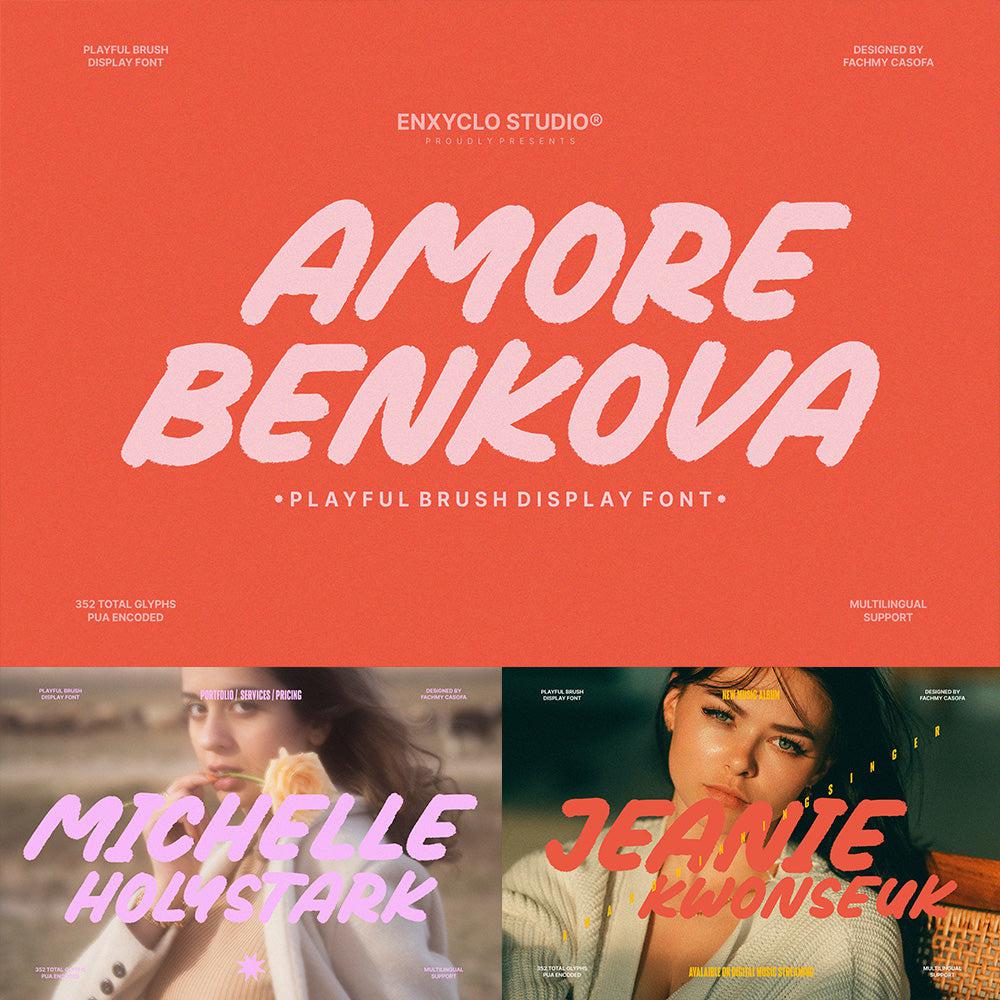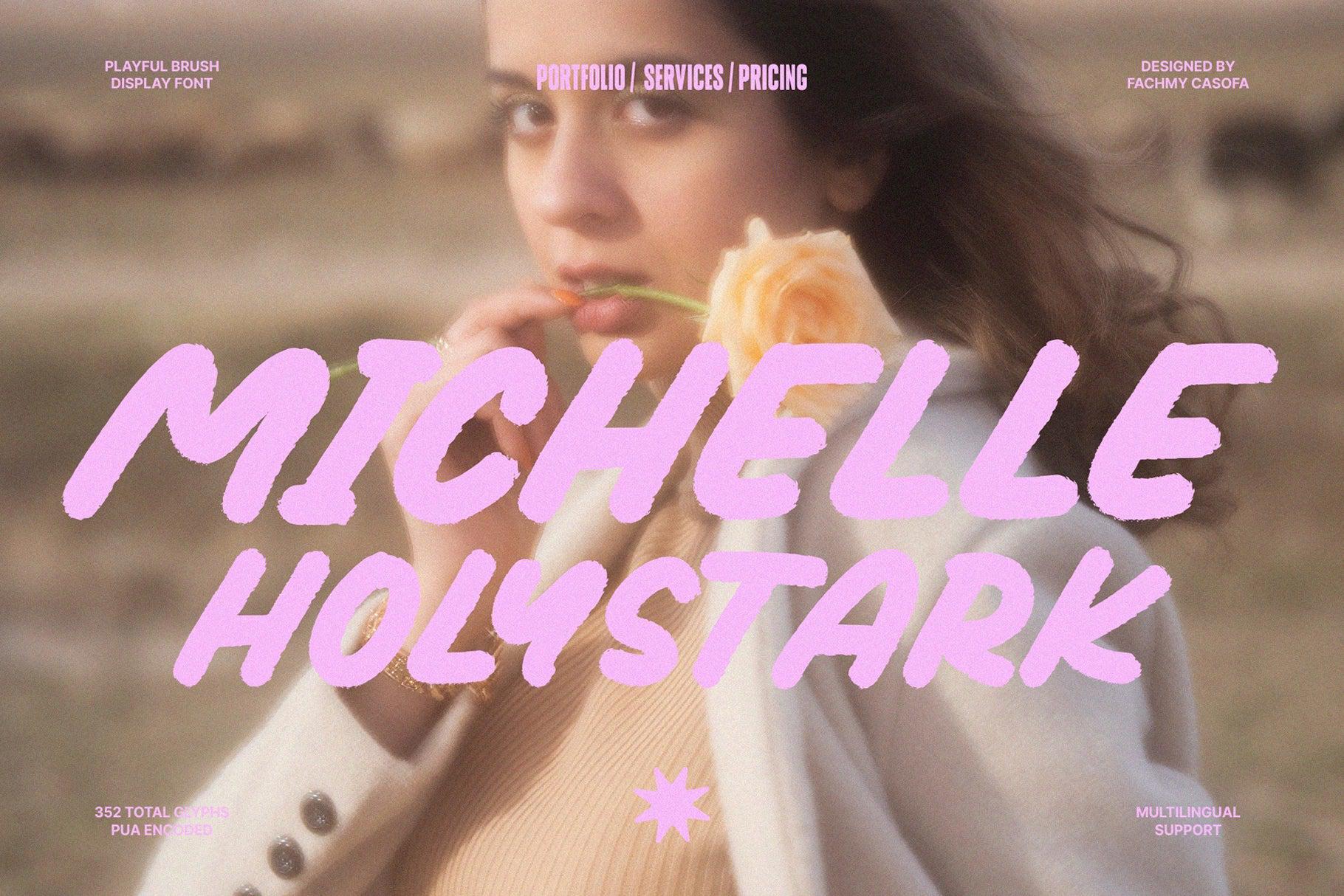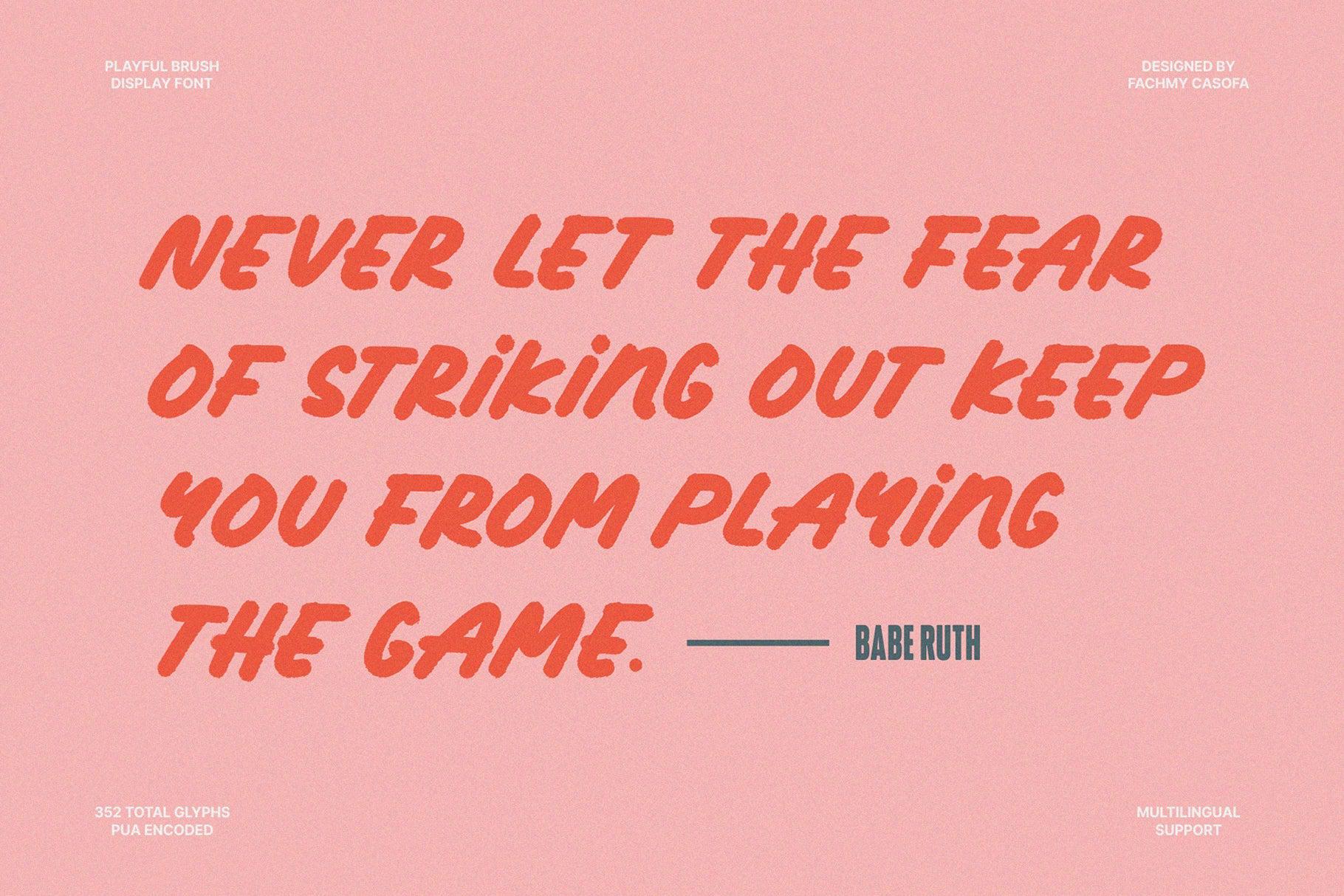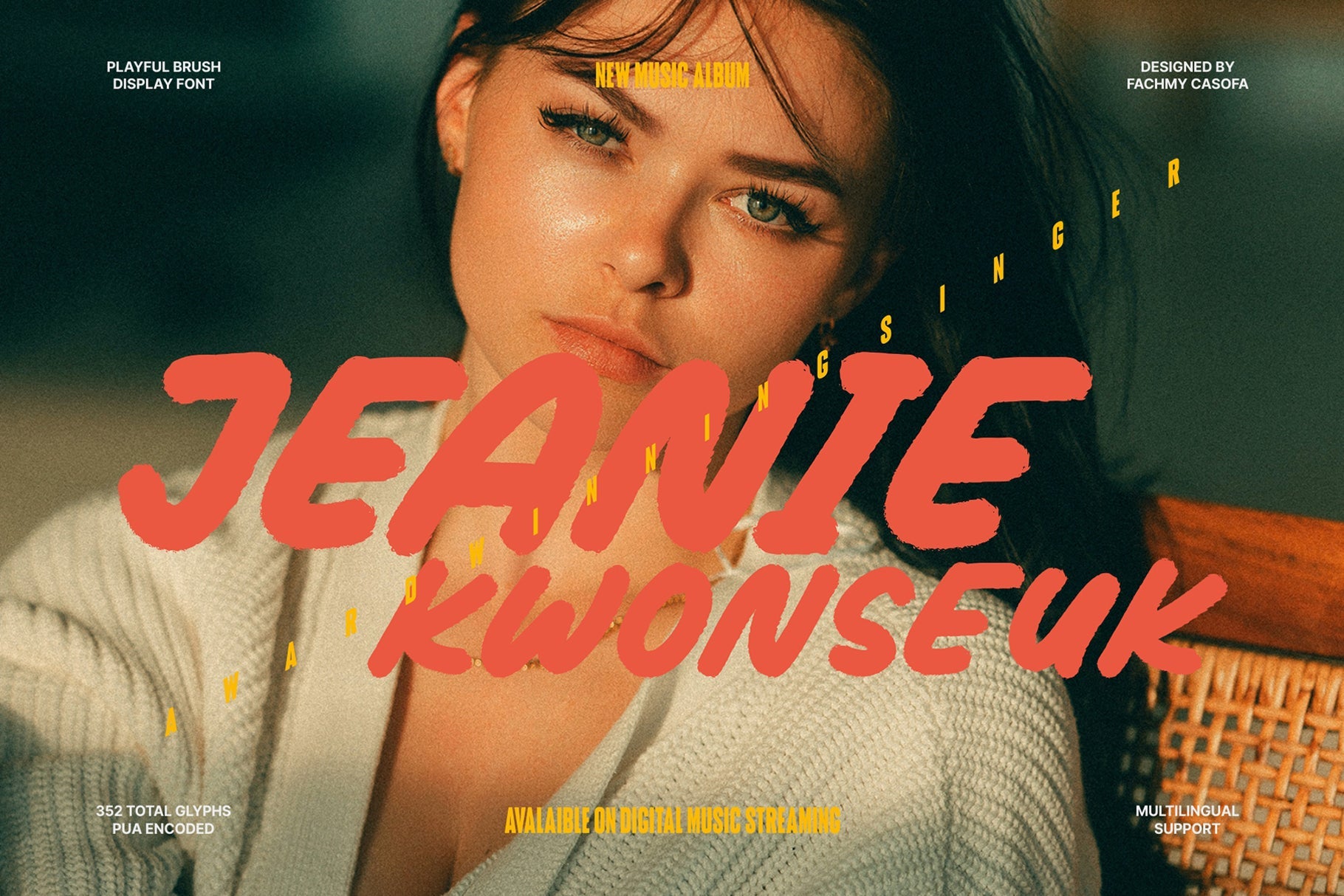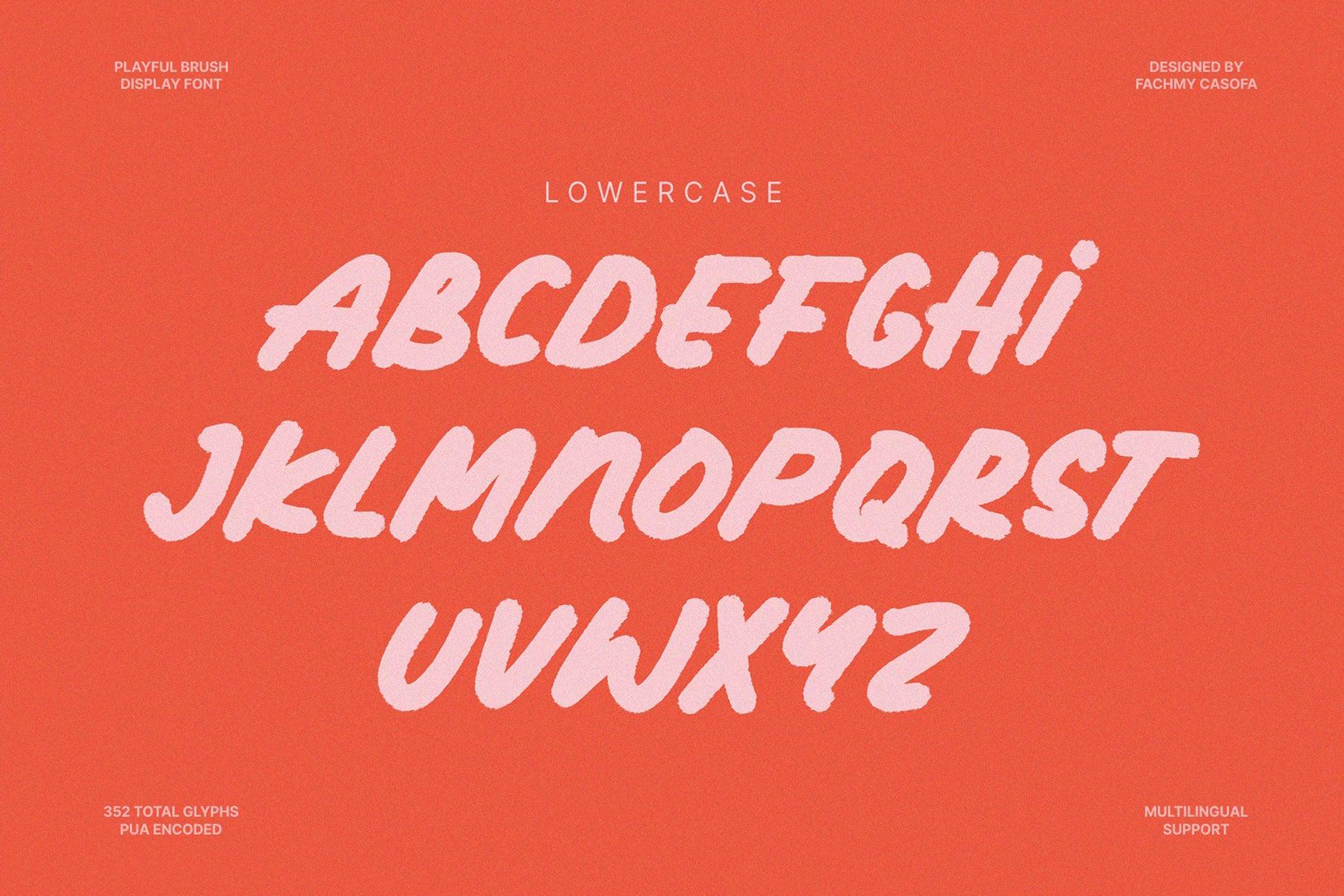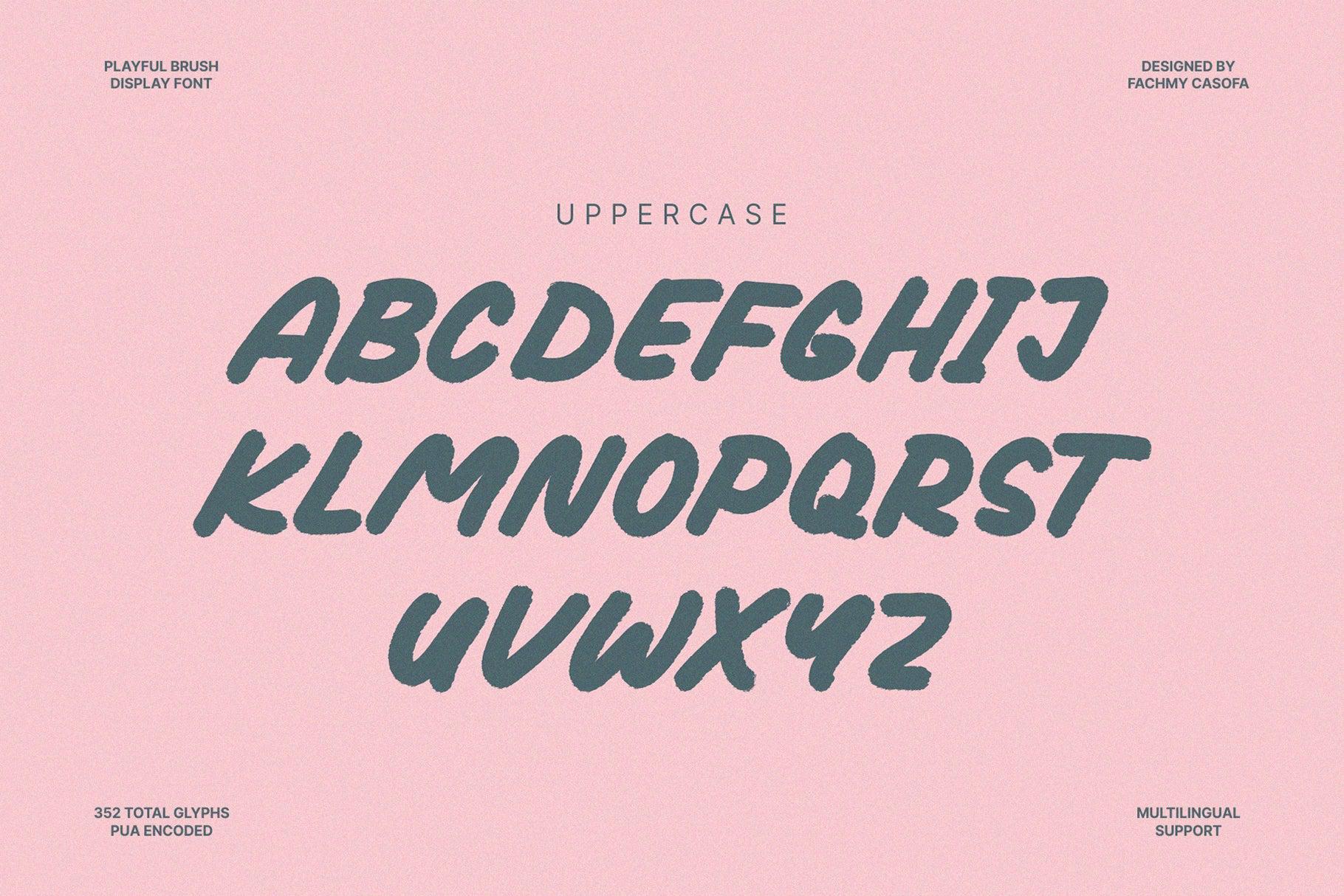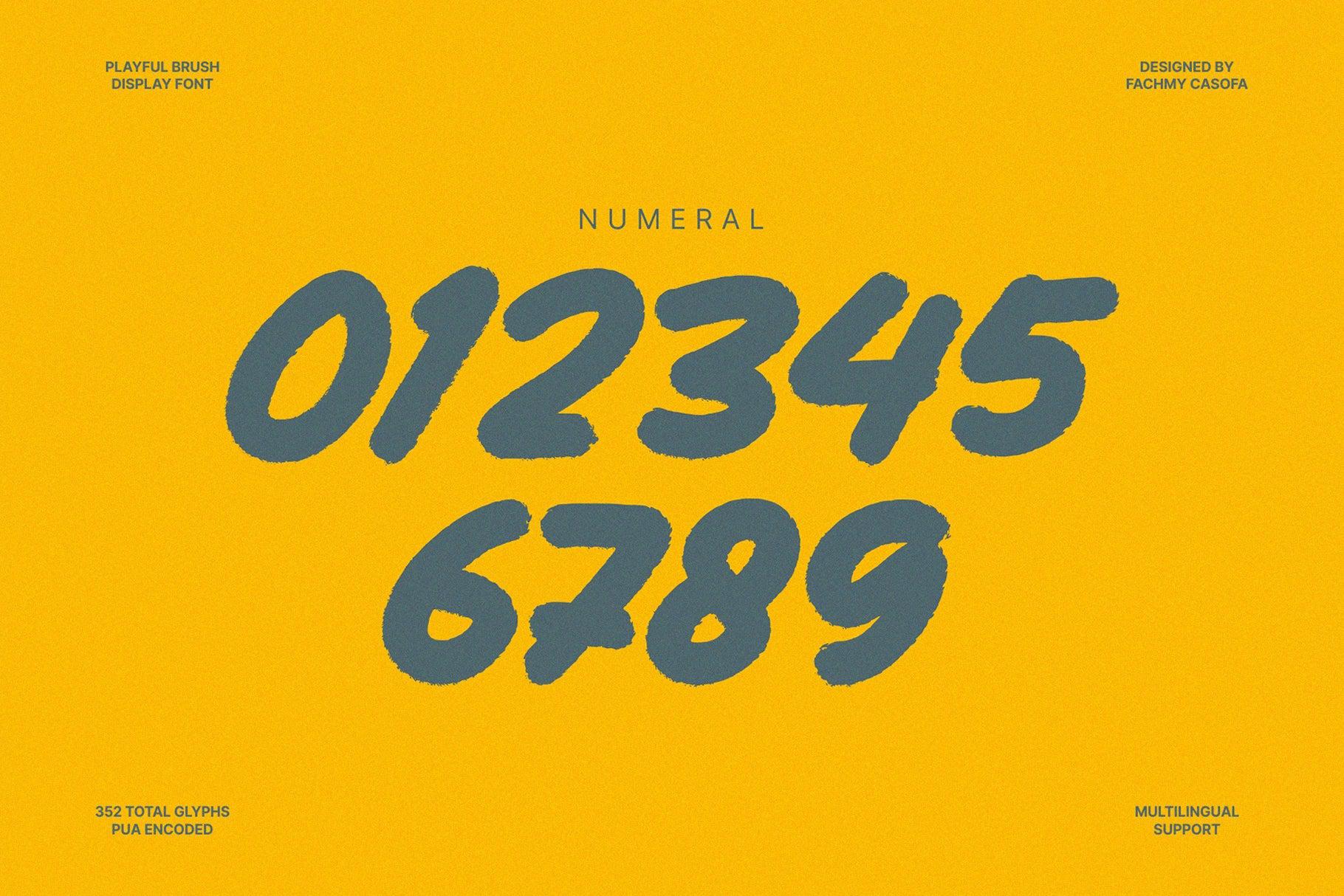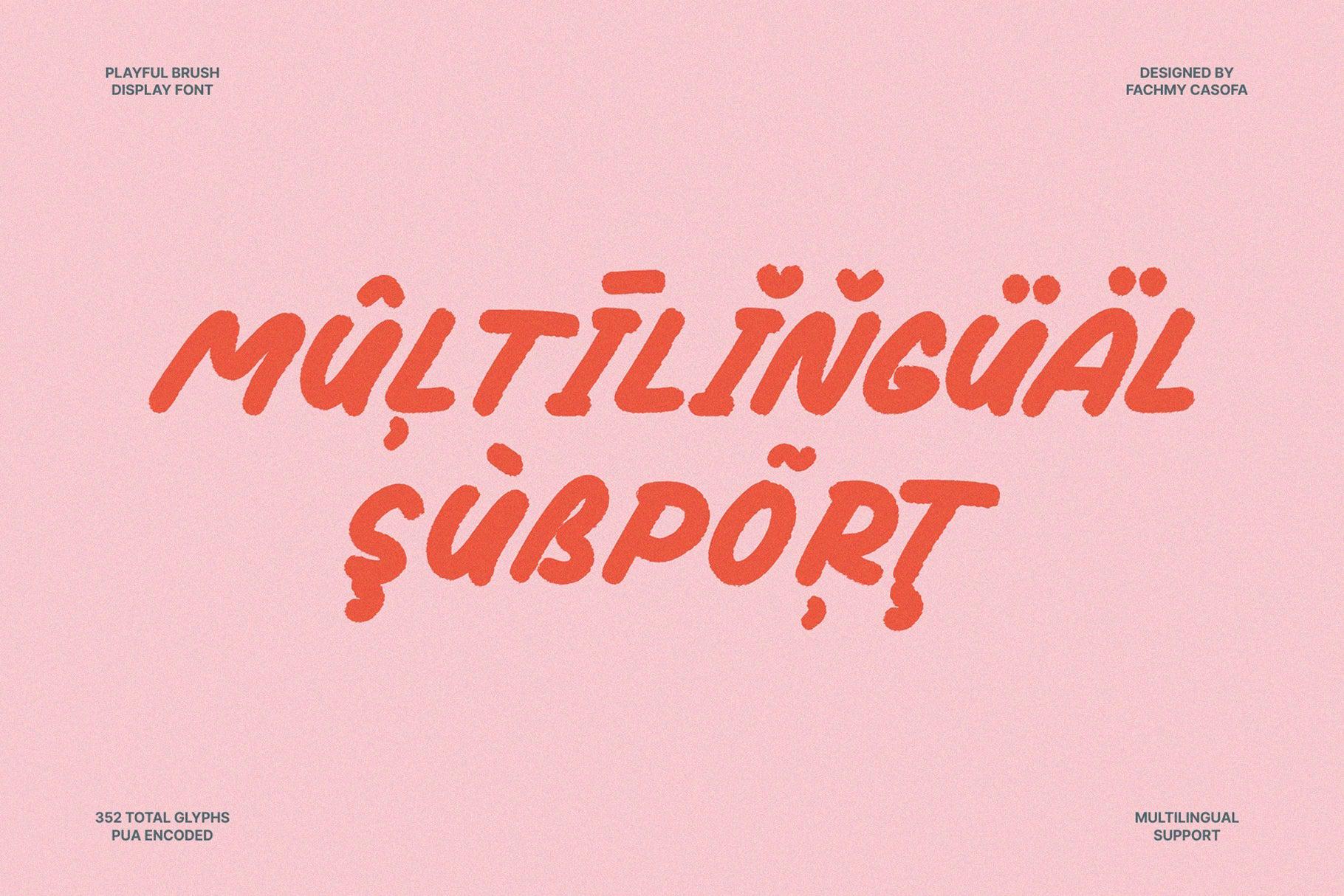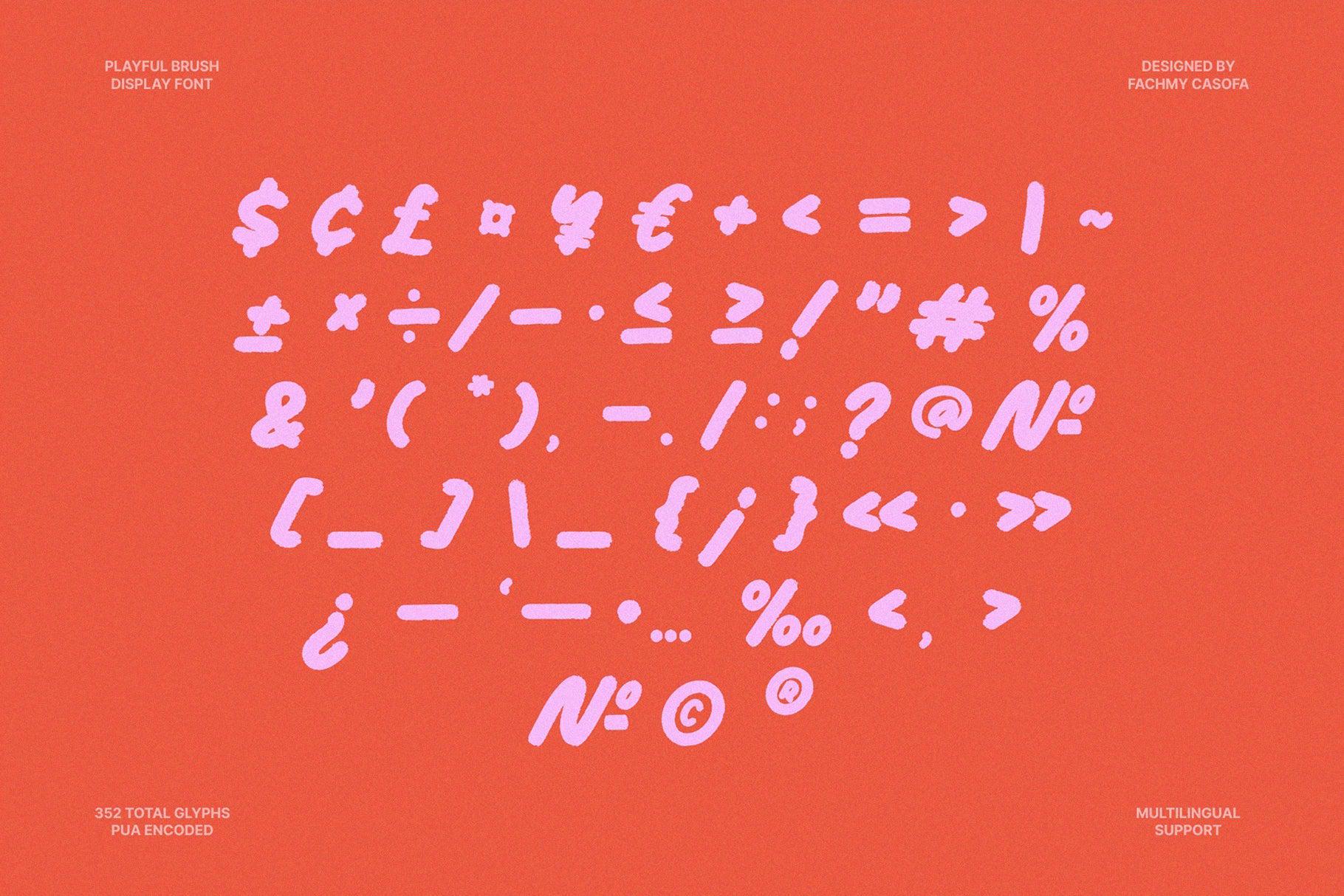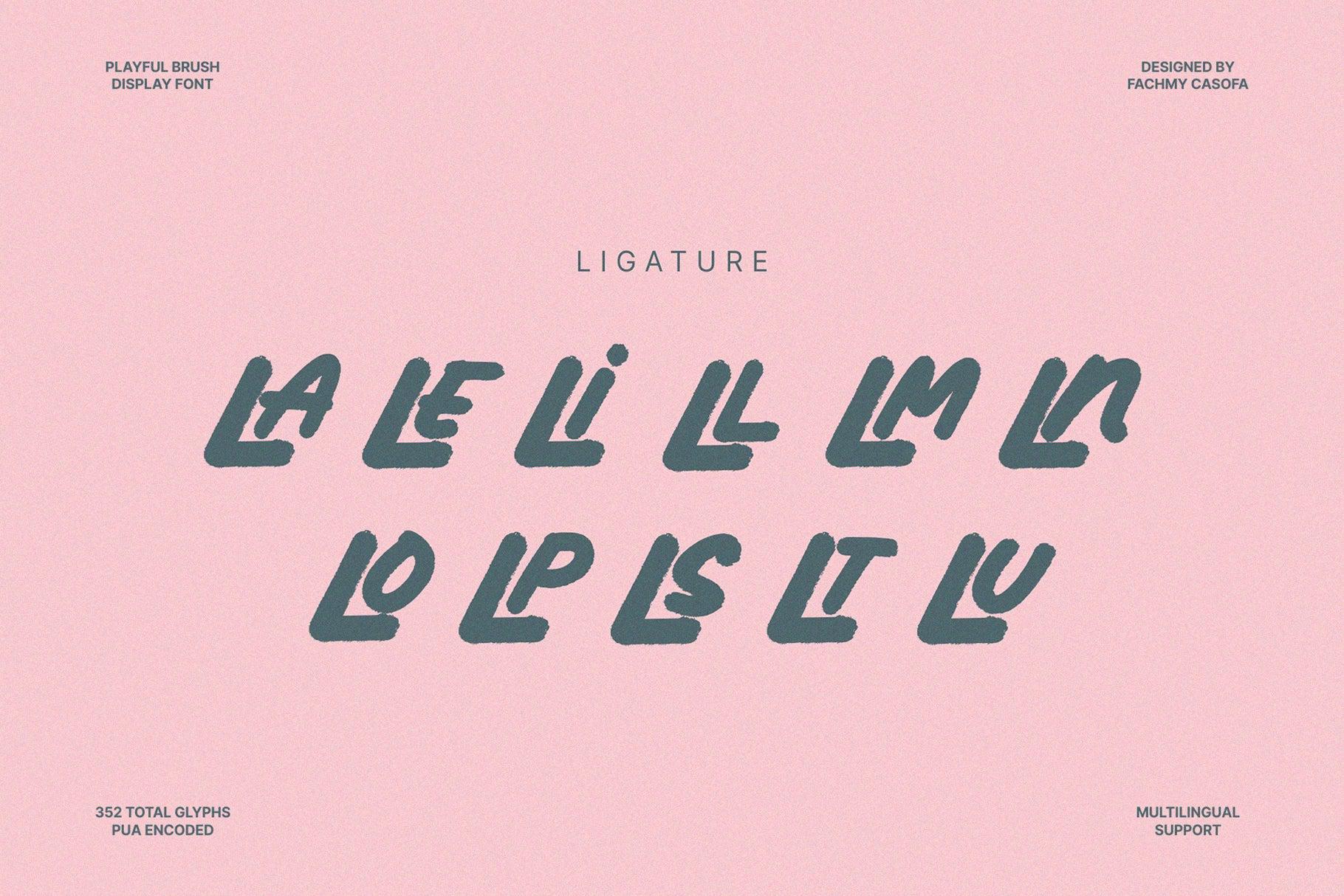
NCL AMORE BENKOVA - ボールドブラシの遊び心のある表示フォント
The NCL AMORE BENKOVA is a bold, playful brush display font designed for both large and small point sizes. It includes True Type Font (TTF), Open Type Font (OTF), Web Open Font Format (WOFF1 & WOFF2), and features 352 glyphs, uppercase and lowercase letters, numerals, punctuation, symbols, ligatures, and multilingual support.
Ideal for bold and playful graphic design projects. Perfect for headlines, posters, branding, and magazine layouts, ensuring your creative ideas stand out with a unique and eye-catching aesthetic.